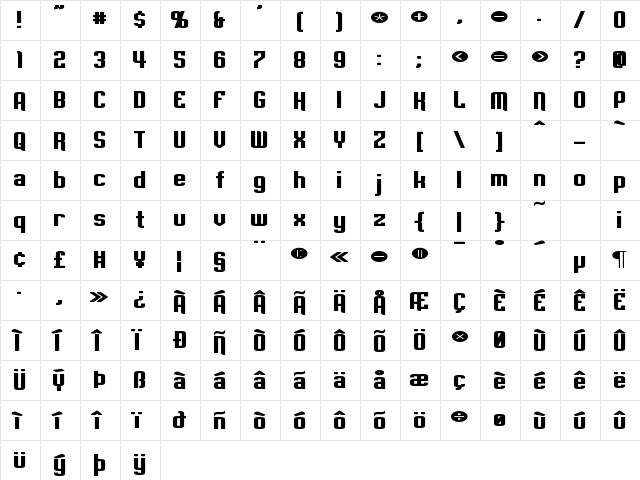
Empanada Expanded Bold
| Foundry | Neale Davidson |
| Designer | Neale Davidson |
Design Context for Empanada Expanded Typeface
Empanada Expanded takes a measured approach to typography — its balanced proportions and neutral character make it a reliable workhorse for both digital and print work. The heavy weight commands attention and anchors typographic hierarchies.